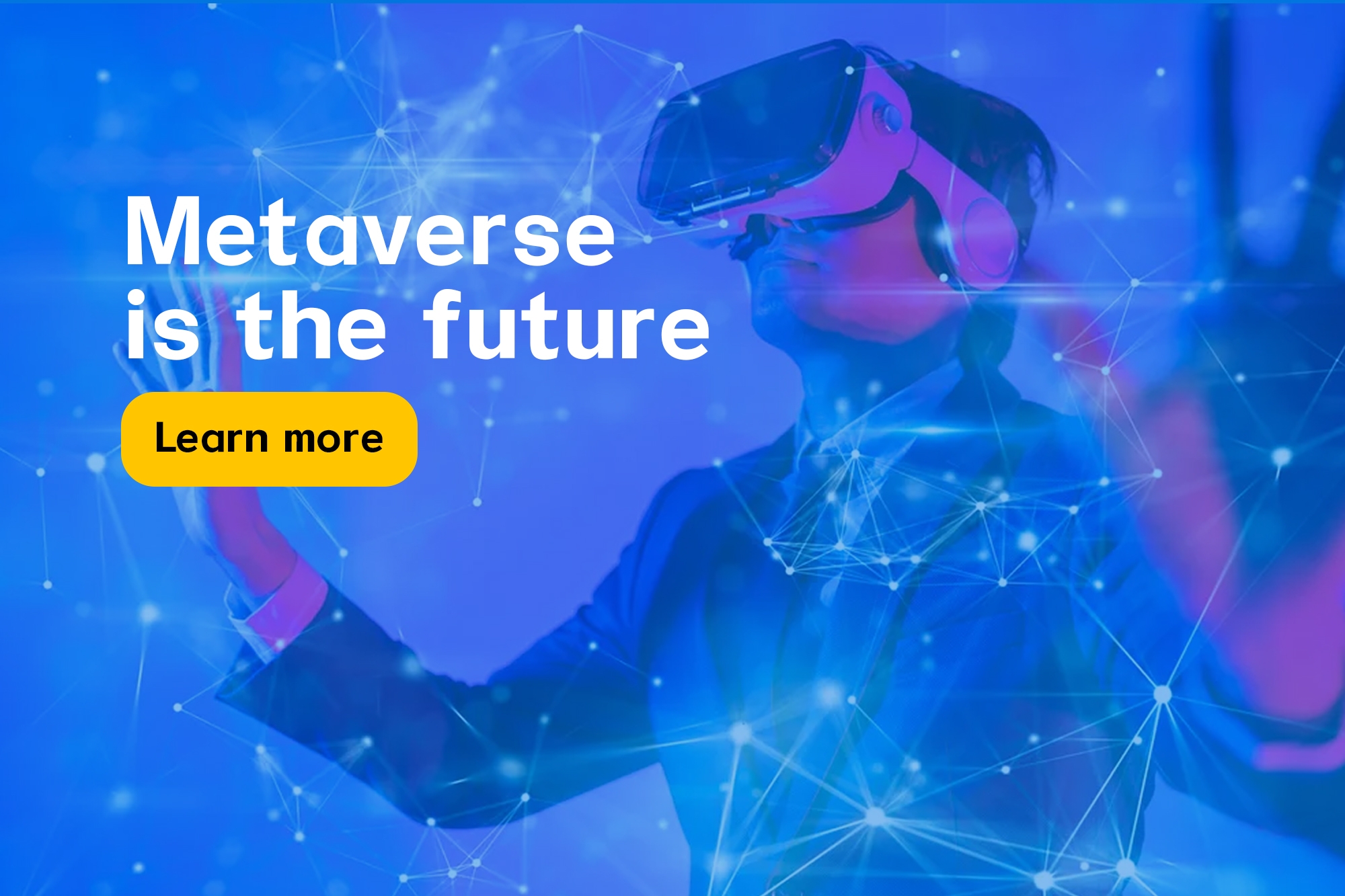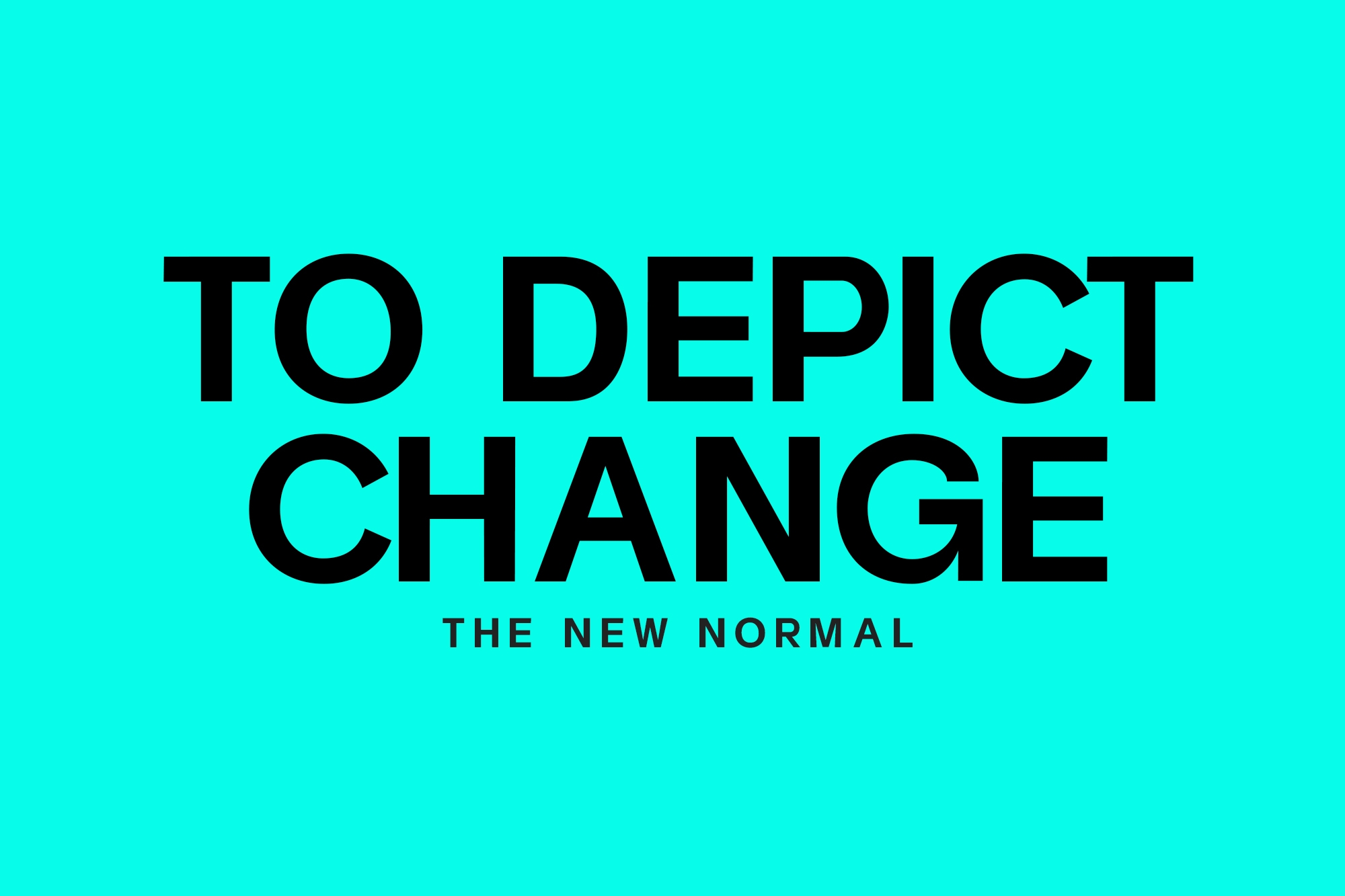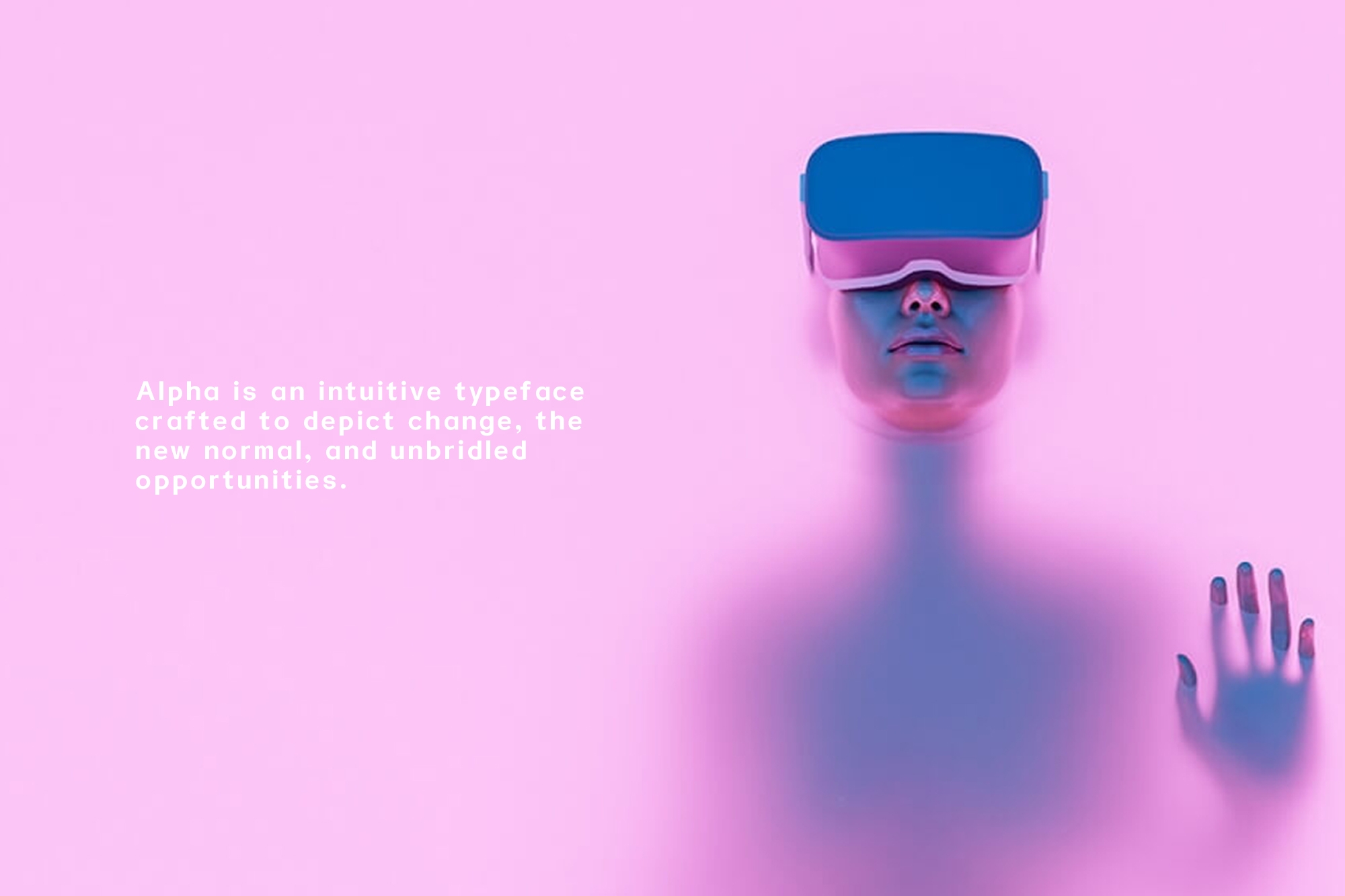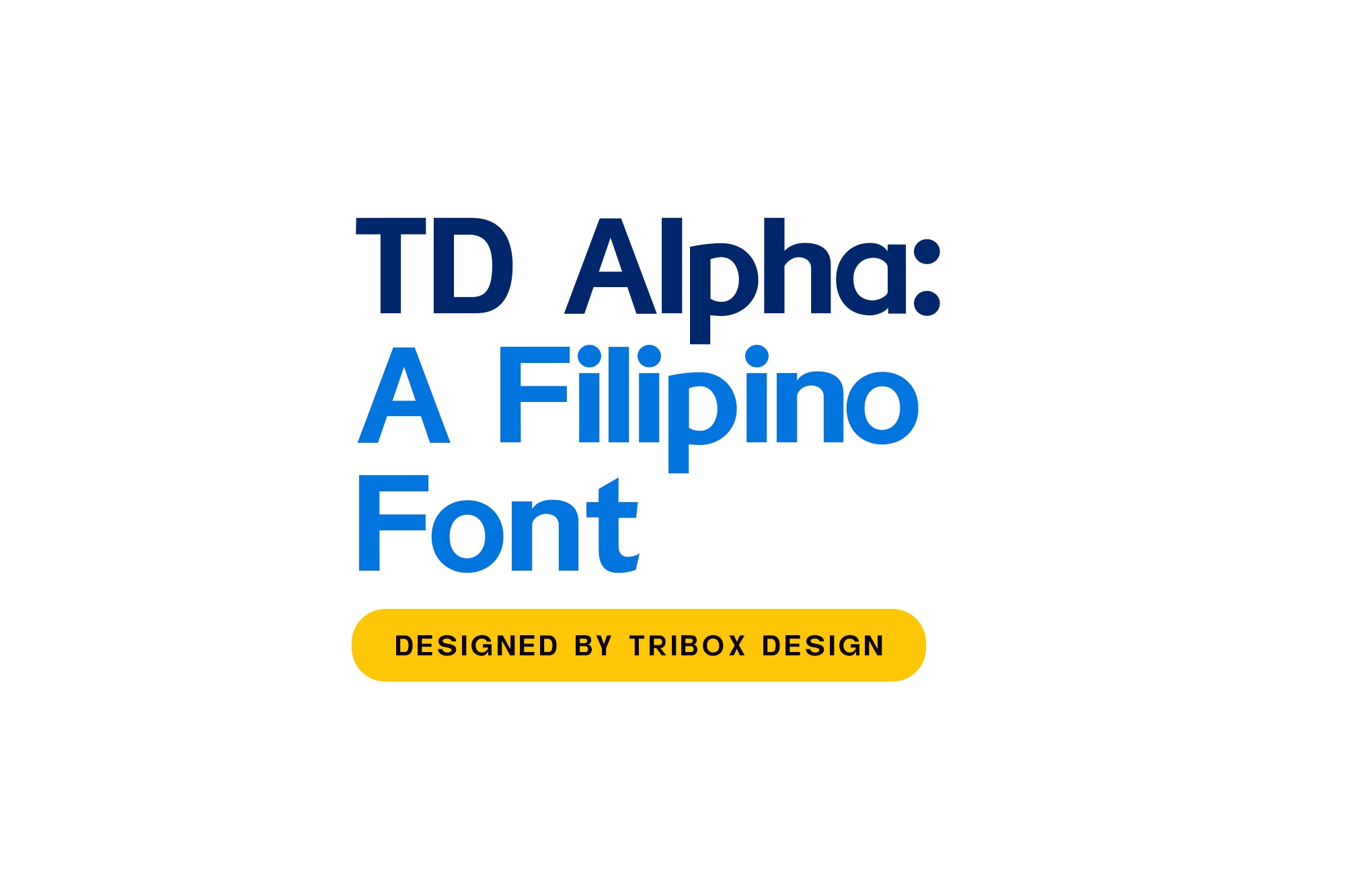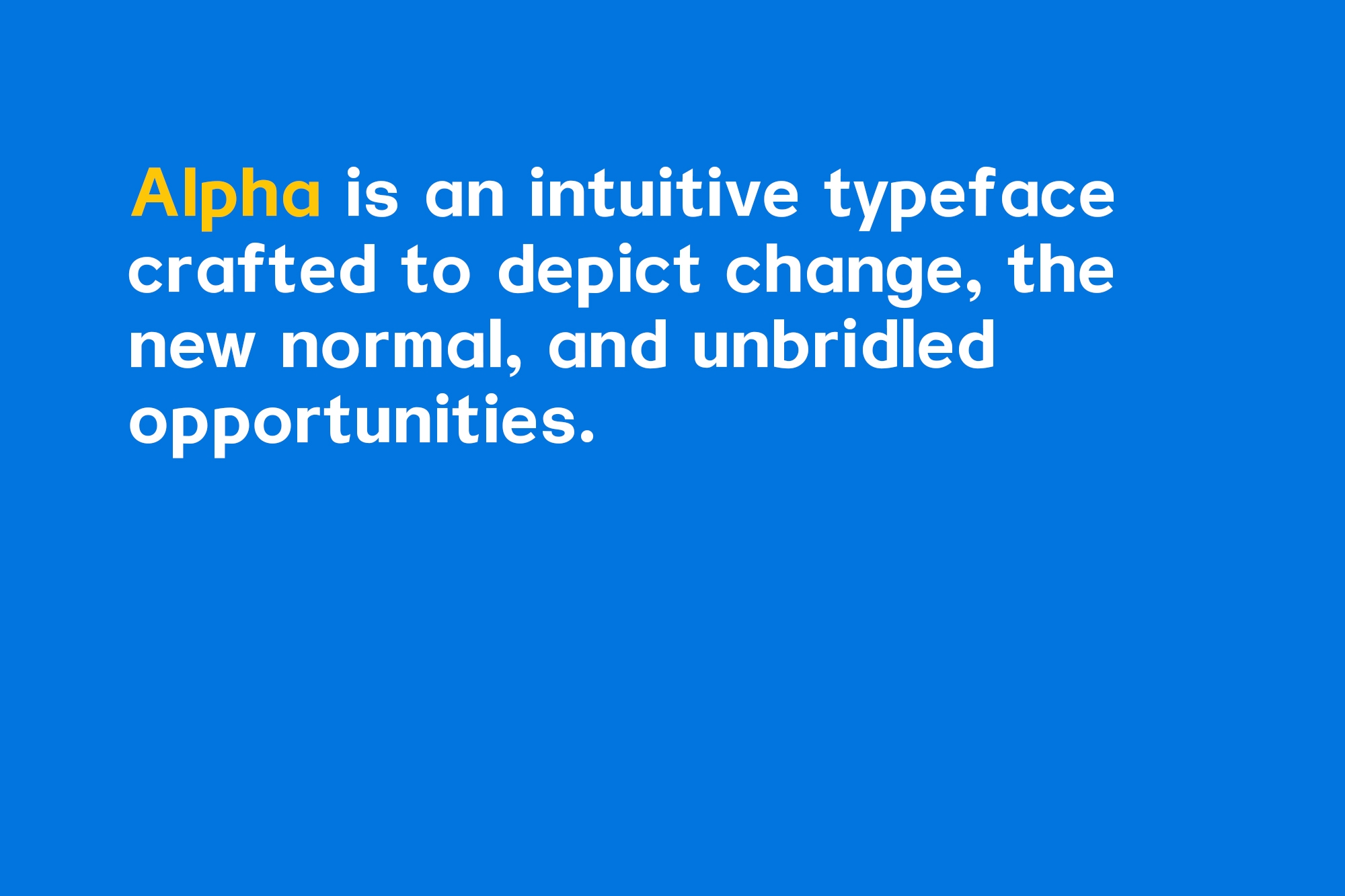
TD Alpha Pro: The font of the future
The TD Alpha Pro font, proudly crafted by our very own Chief Creative Officer, Inu Catapusan and the Tribox Design team.
Alpha is an intuitive, clean and modern sans serif typeface crafted to depict change, the new normal, and unbridled opportunities. It has excellent legibility and is ideal for usage in displays, headlines, labels, and website design.